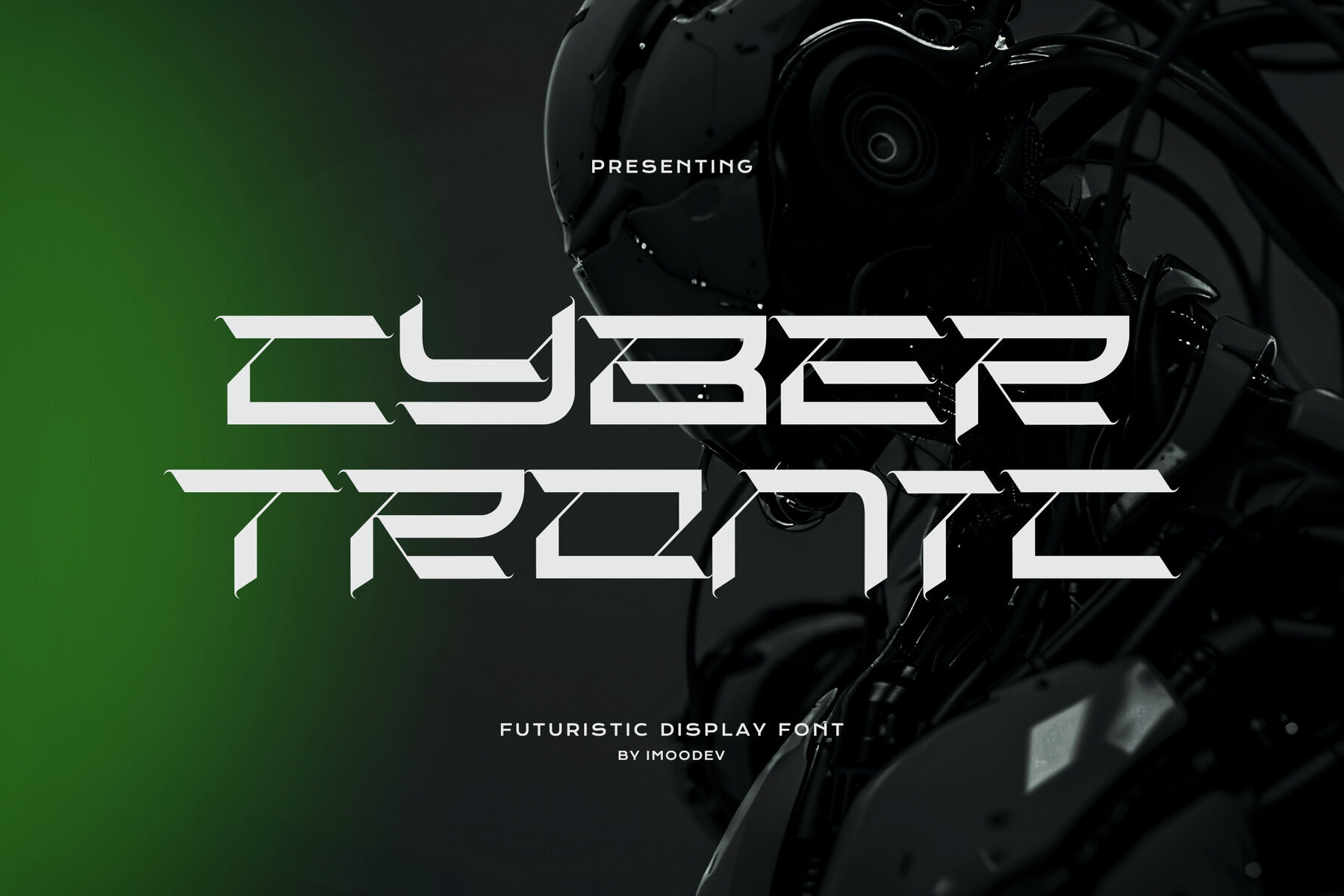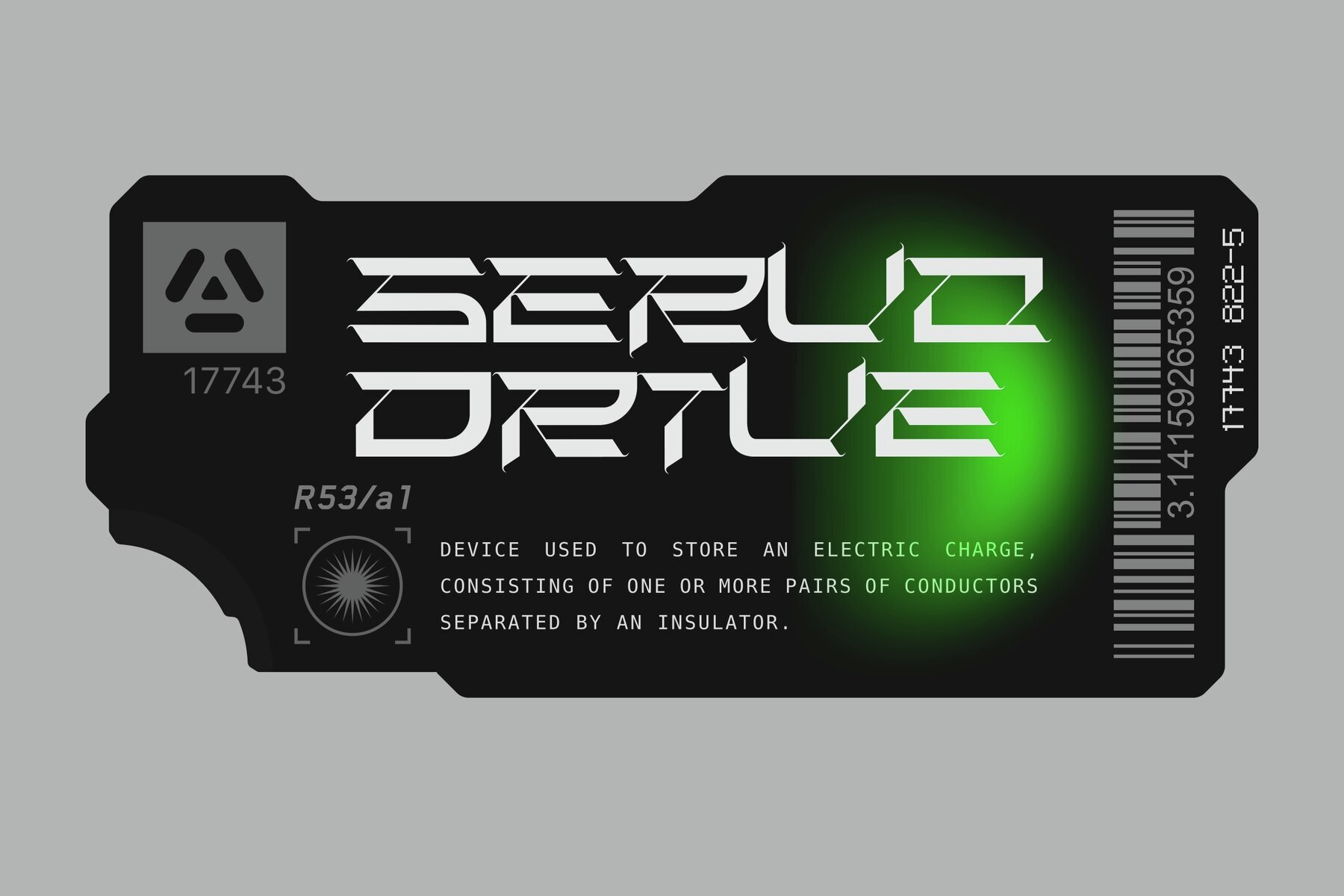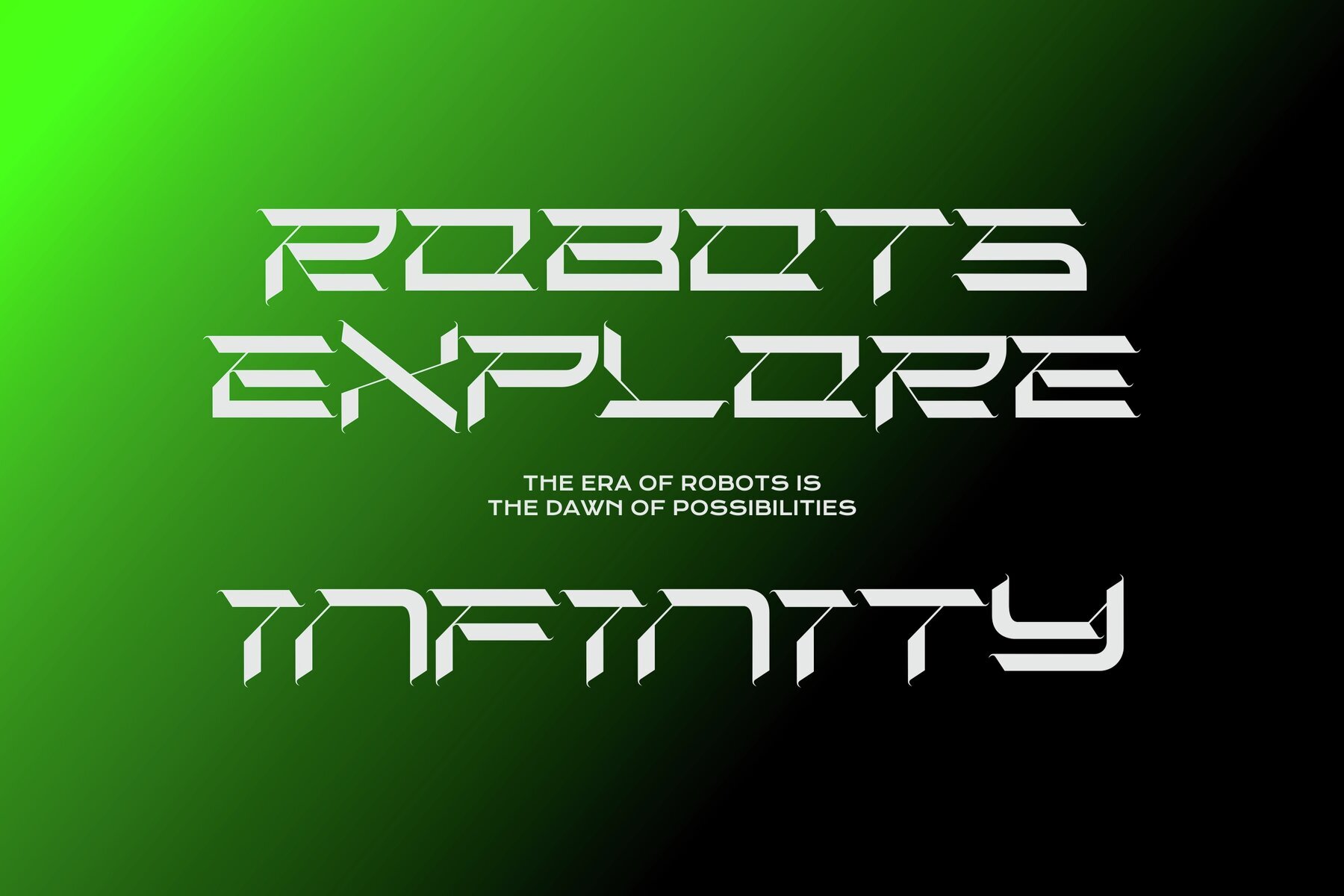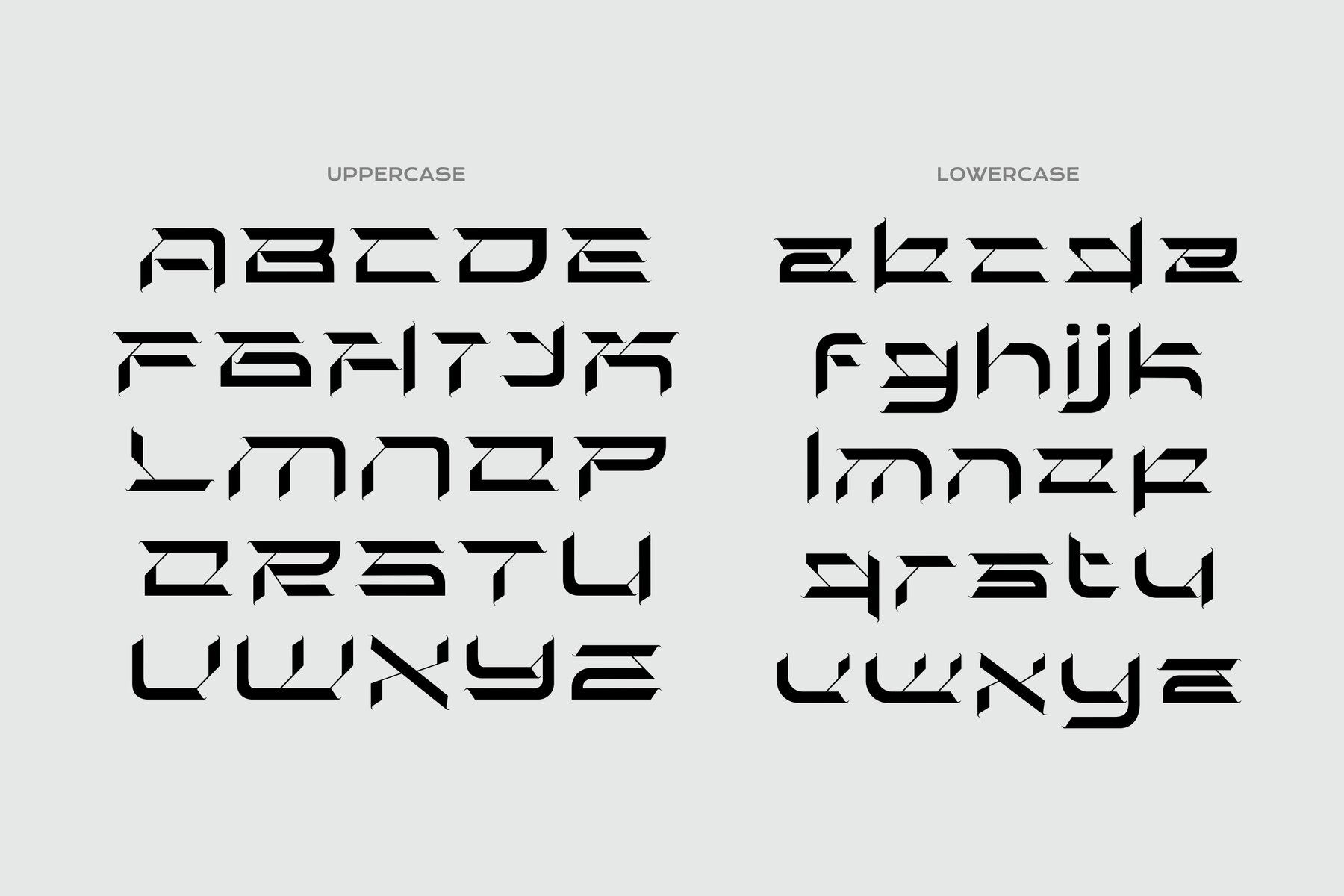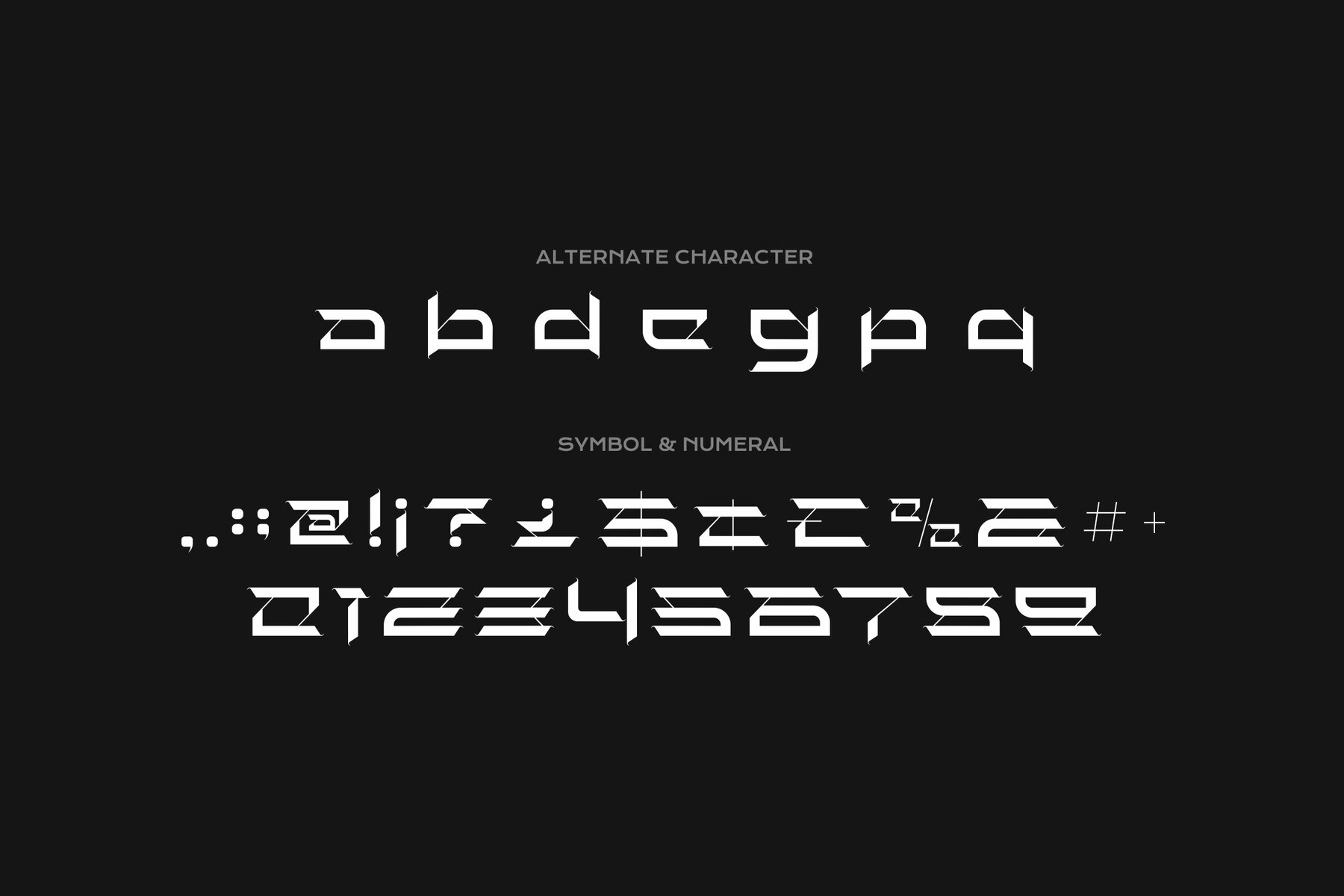
Cyber Tronic Font
Cyber Tronic Regular
Cyber Tronic is a futuristic display font that captures the essence of technological advancement and science fiction. Its design reflects precision with an extended stance and sharp, angular letterforms that ensure it stands out. The font features characters crafted with a geometric structure, incorporating clean cutouts and negative space, achieving a high-tech, stencil-like look.Cyber Tronic: Edgy Cyberpunk Typeface
Embrace the future with Cyber Tronic, offering your projects a distinctive cybernetic flair, perfect for those seeking to push the boundaries of modern design.